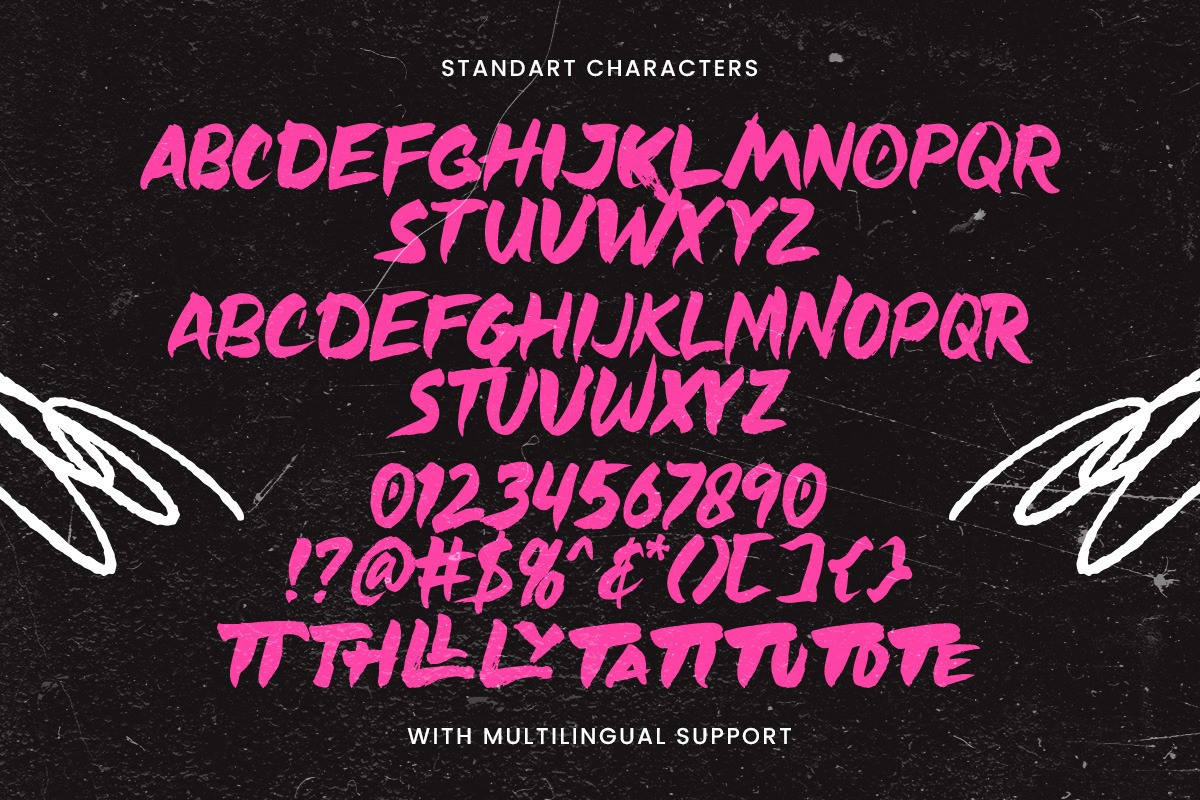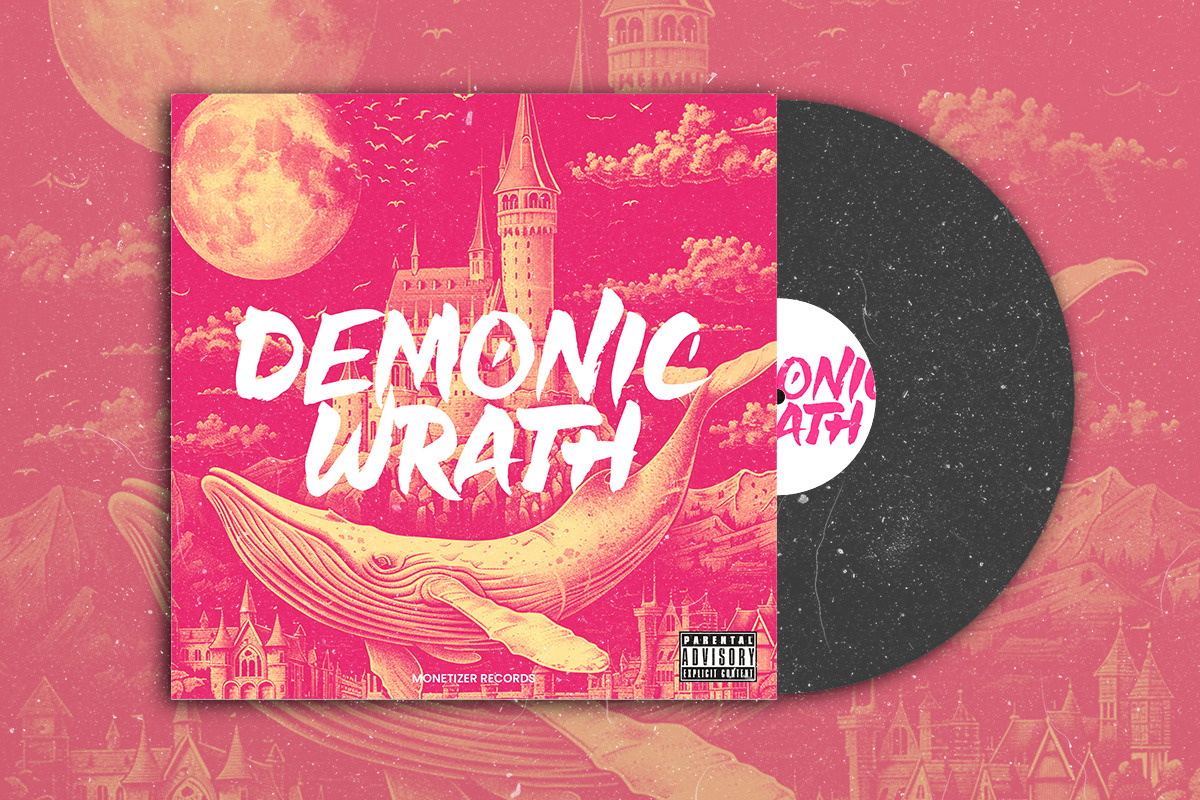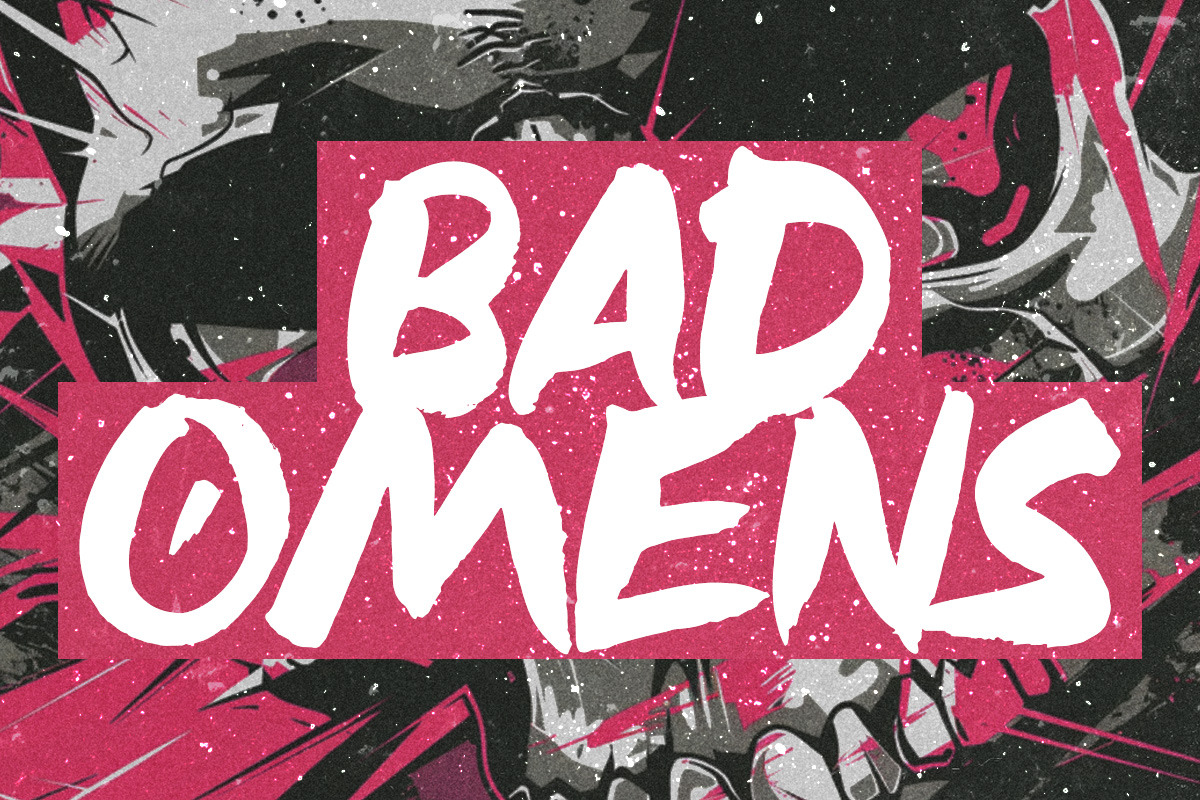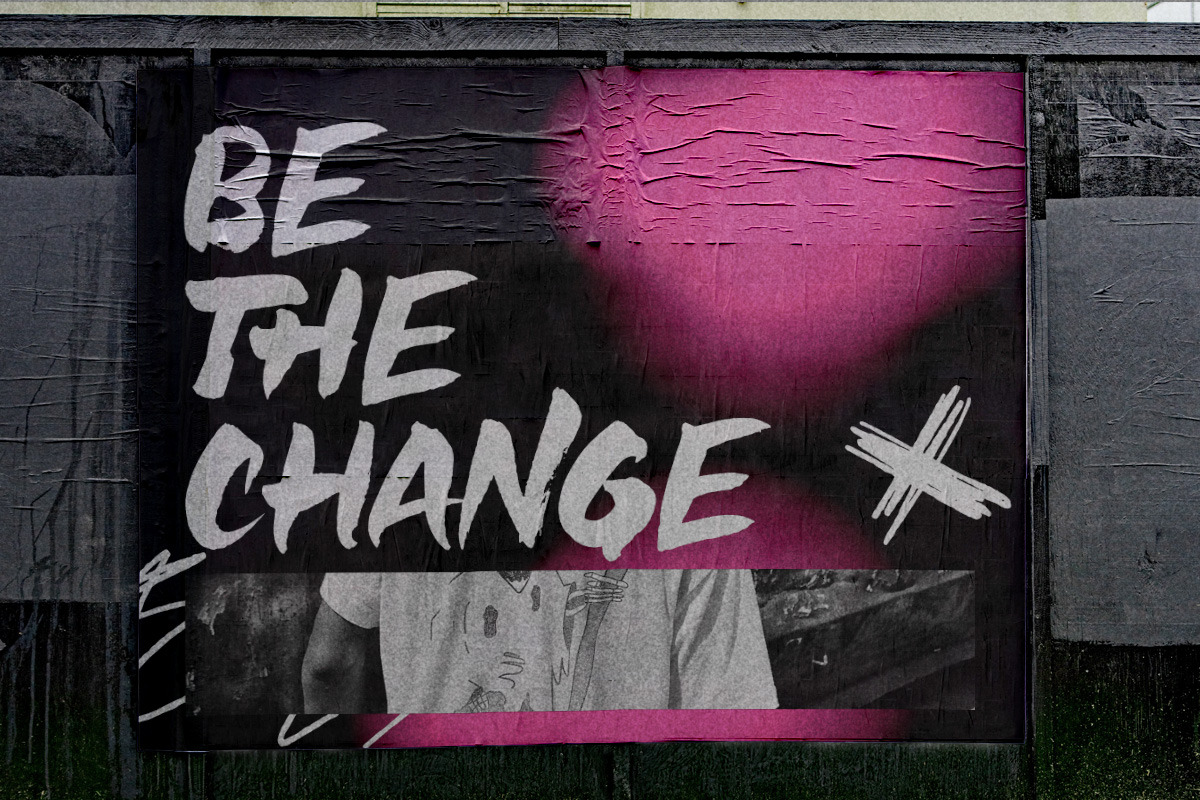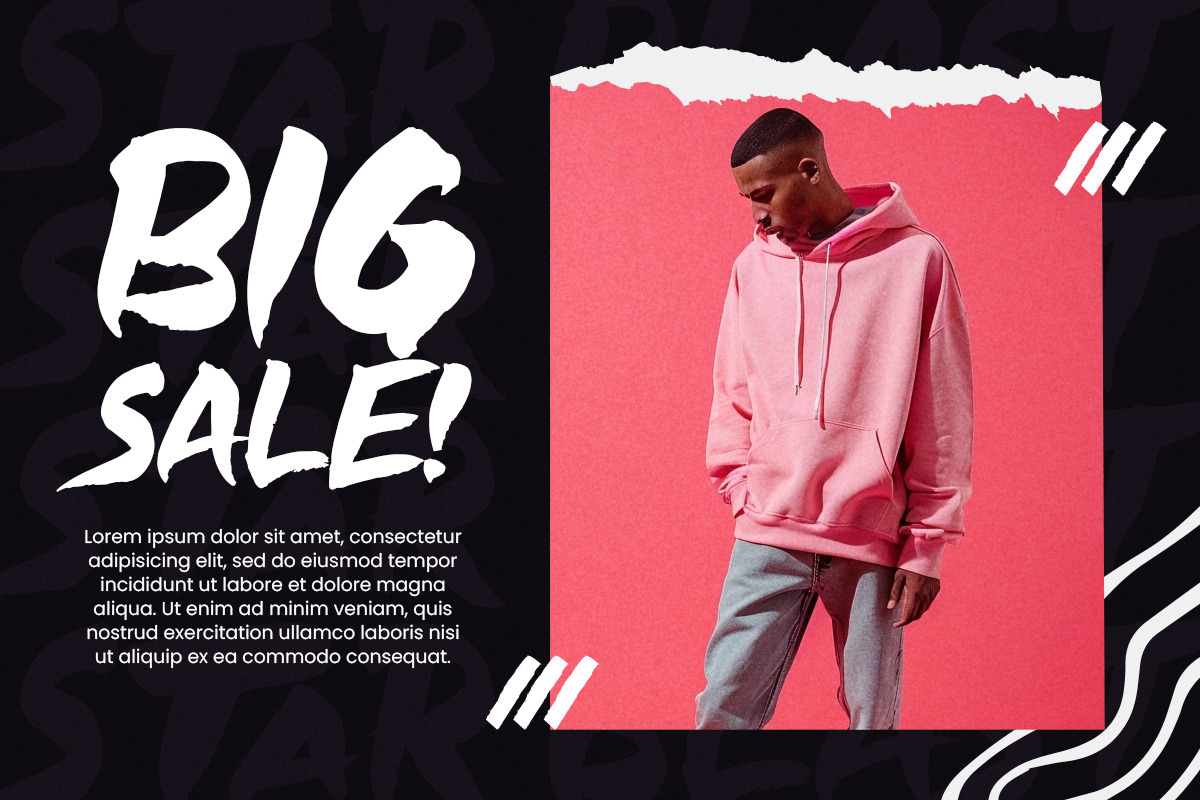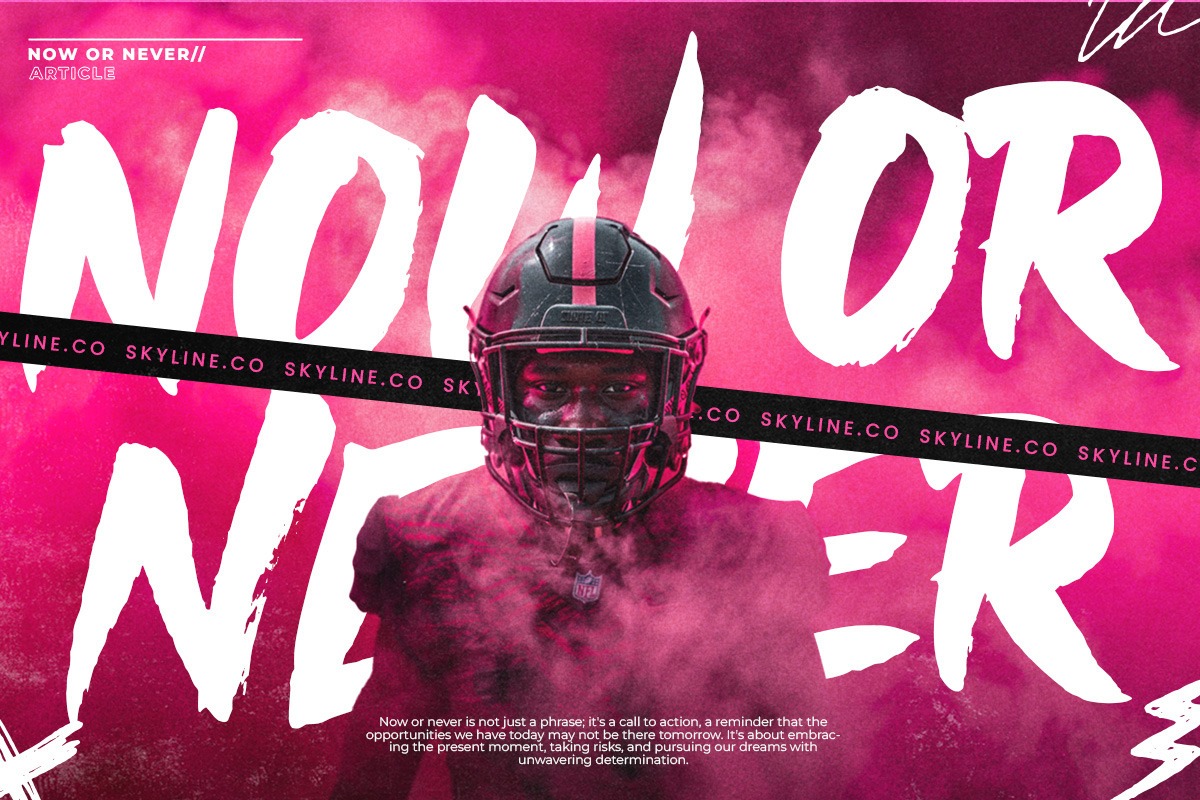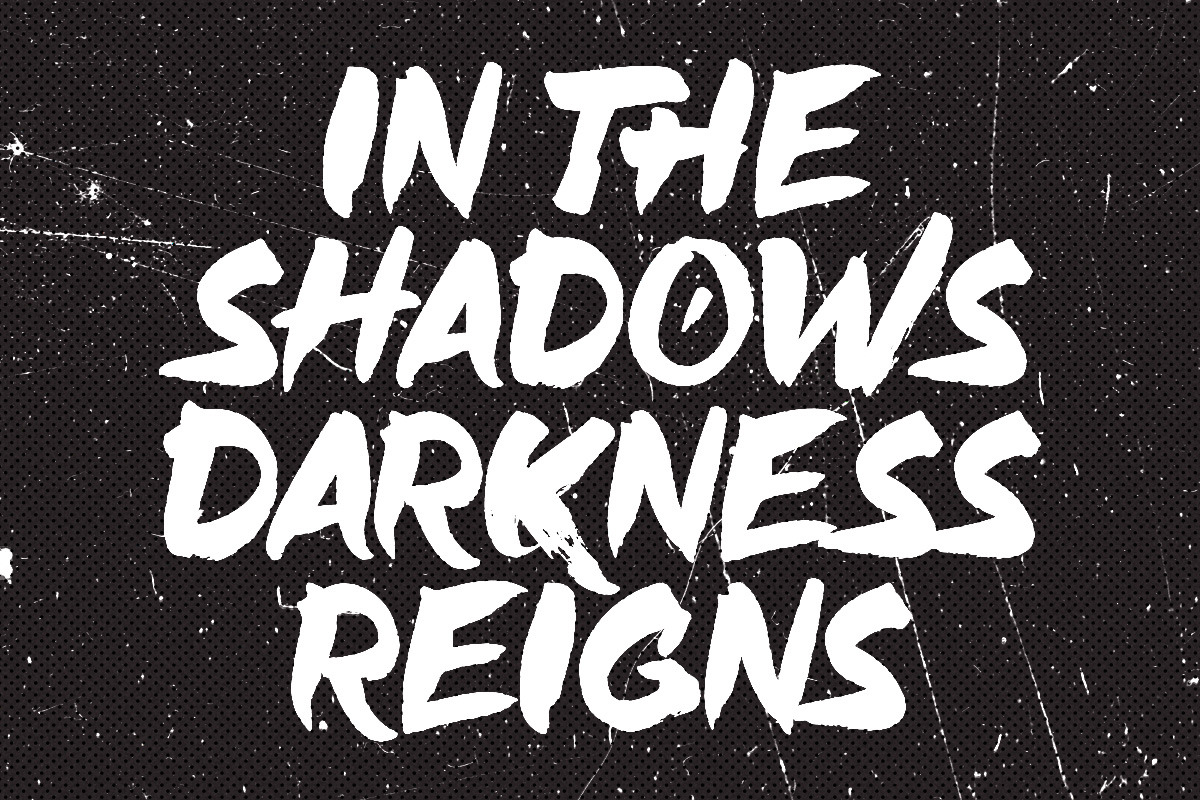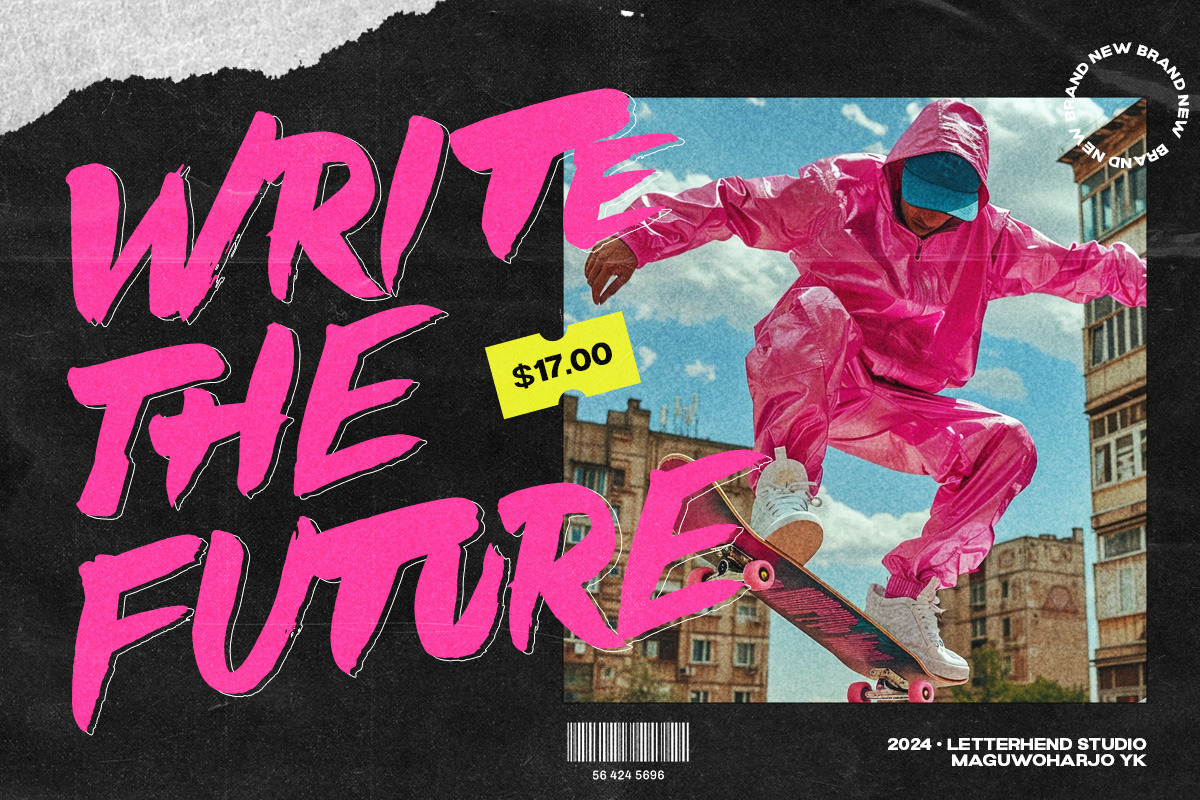
Cargano Brush
Experience the thrill of Cargano Brush Font! With its dynamic dan casual brush strokes, this font designed to make headlines pop with energy and attitude. Perfect for headlines in the world of sports and skateboarding, its energetic strokes evoke the adrenaline and excitement of the game.
- Alternates characters/ligatures